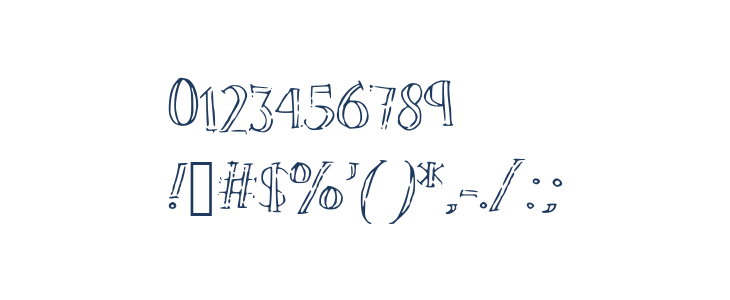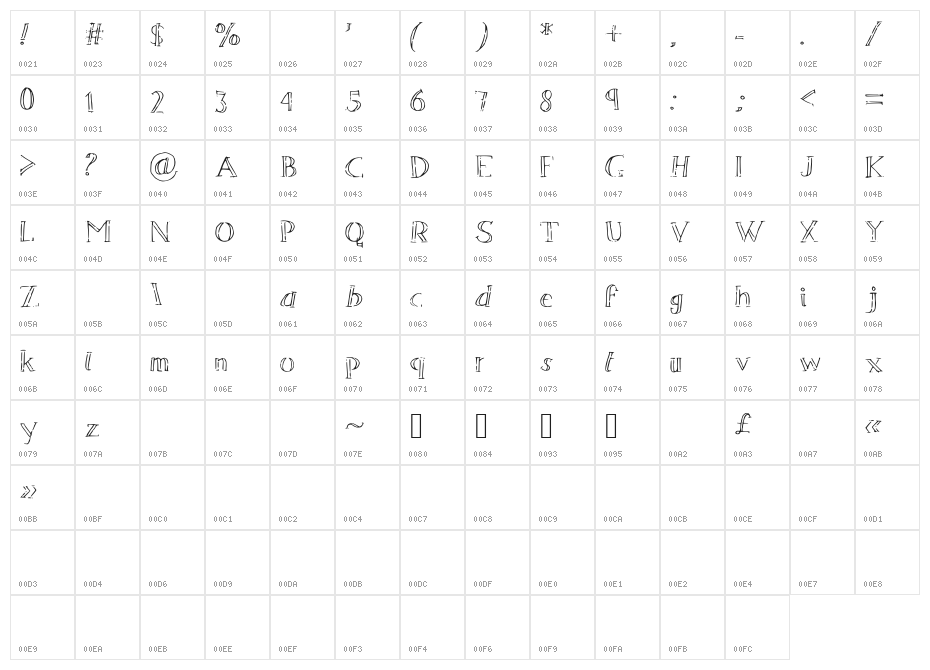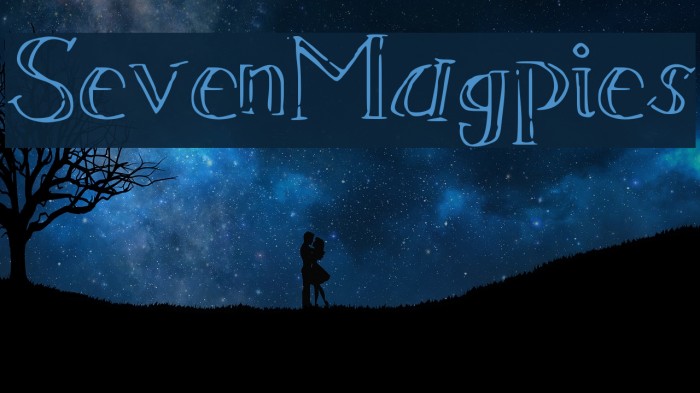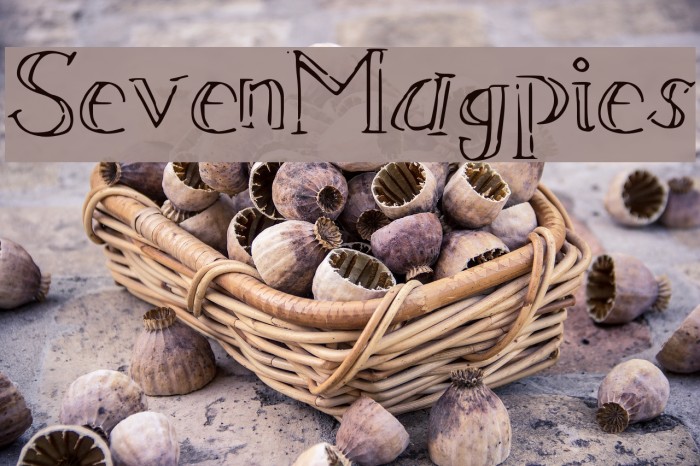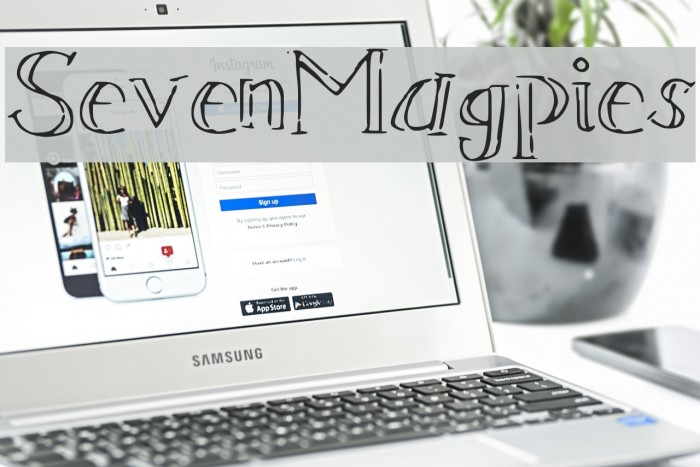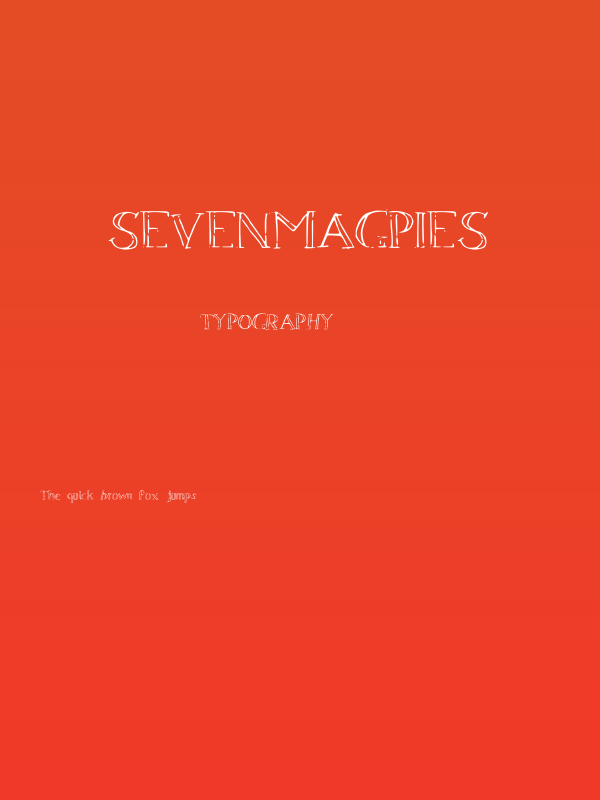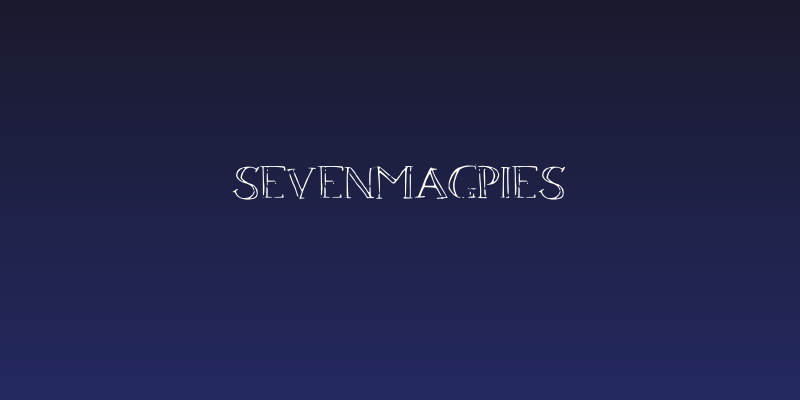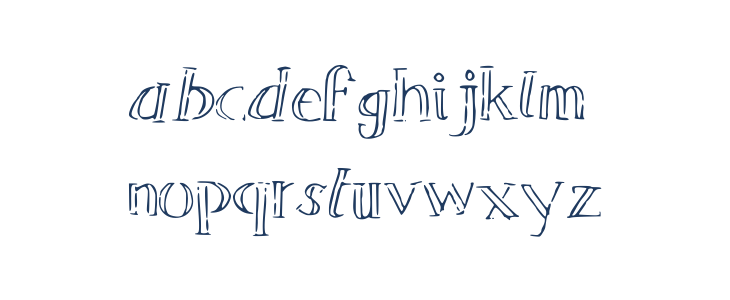
SevenMagpies Font
SevenMagpies Description
This font features a unique and artistic design with a hand-drawn appearance. The characters exhibit a playful yet sophisticated style, with irregular strokes and a slightly distressed look. The uppercase letters are bold and commanding, while the lowercase letters maintain a whimsical charm. Numbers and special characters follow the same artistic theme, making this font suitable for creative projects. The overall design is both decorative and functional, offering a distinctive flair that stands out in any application.
| Proposed Projects | Ideal for artistic projects, branding, posters, and invitations where a unique and creative touch is desired. |